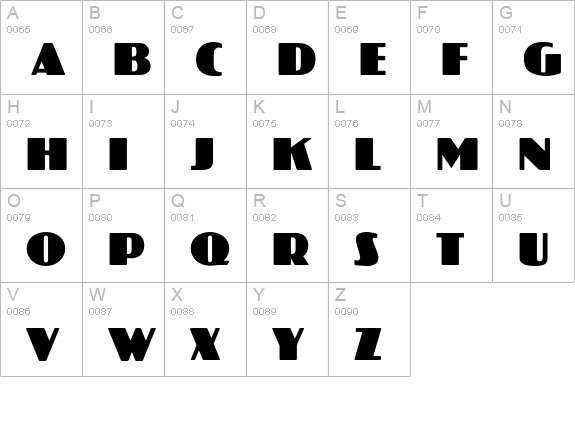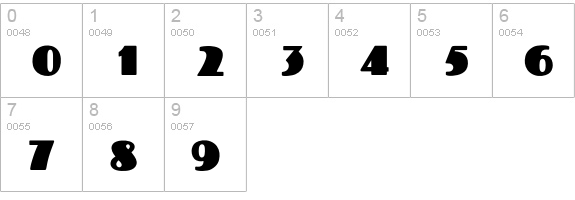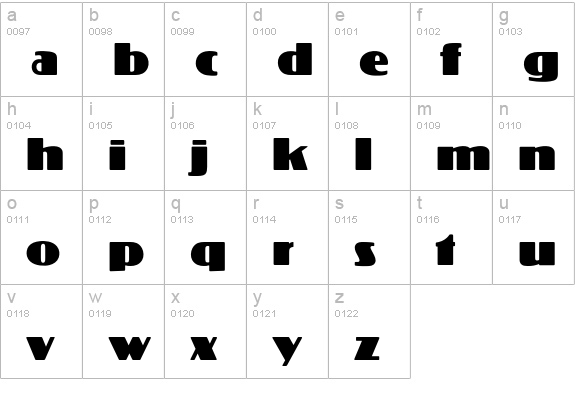
Dimension Font Details
Dimension font is a modern and sophisticated typeface that brings a sense of depth and dimension to your design projects. With its sleek lines and elegant curves, Dimension font adds a touch of style and creativity to any piece of work. This versatile font is perfect for a wide range of applications, from branding to editorial design. The best part? Dimension font is available for free download at FontsMarket.com, making it accessible to designers and creatives looking to elevate their projects without breaking the bank. Whether you're working on a new logo, website, or print materials, Dimension font is sure to make a lasting impression with its unique visual appeal. Don't miss out on the opportunity to enhance your designs with the Dimension font. Download it for free today and see the difference it can make in your creative endeavors.